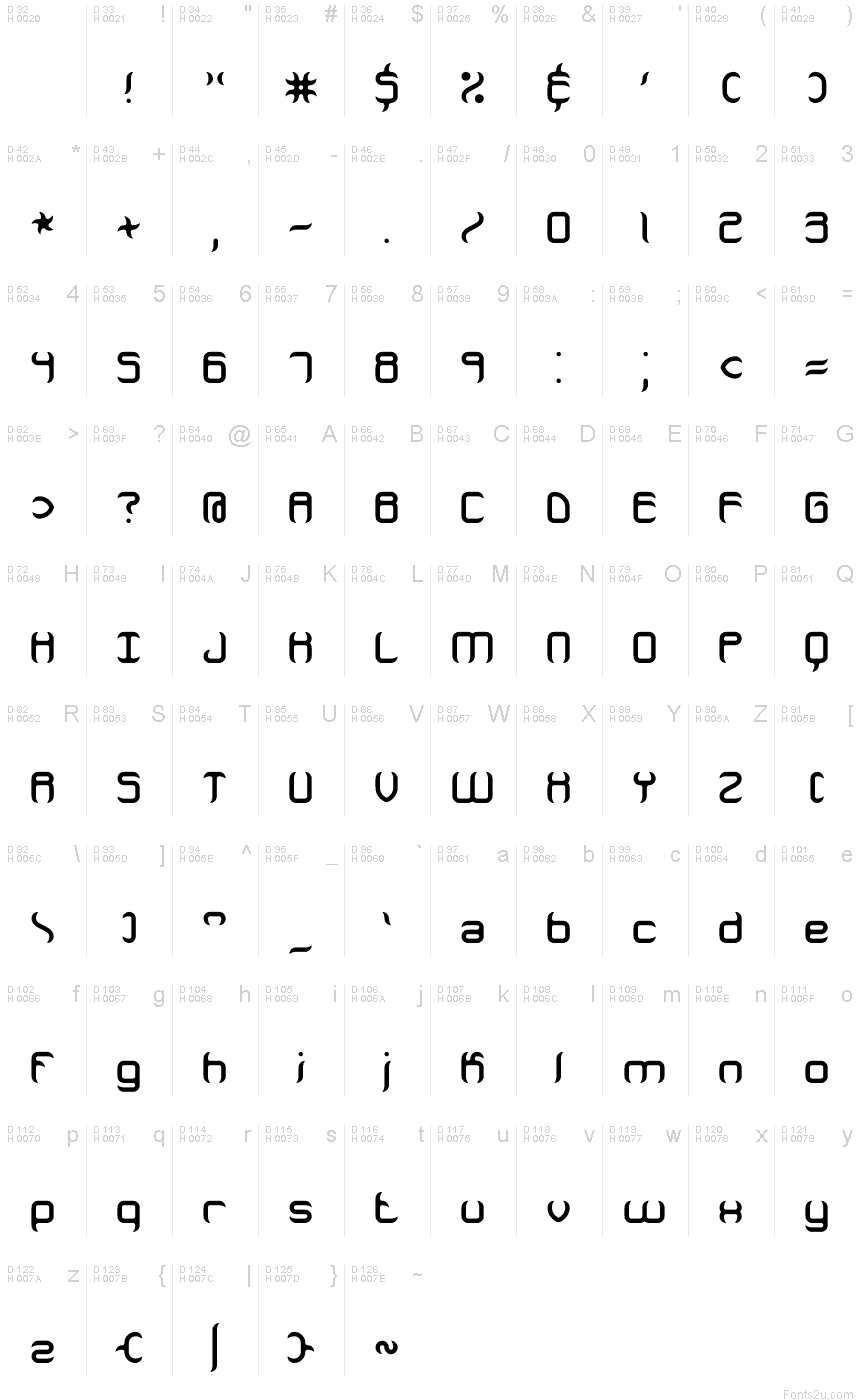
Jeopardize BRK font by Aenigma Fonts is a free groovy display typeface that fuses retro arcade energy with sleek, futuristic curves. Its thick, tubular strokes wrap around soft square interiors, creating chunky, almost rubbery letterforms that feel both playful and high-tech. The rounded corners and tight rhythm give words a steady, pulsing beat, so your titles look bold and intentional, not chaotic.
Using Jeopardize BRK, your headlines snap into focus on game logos, sci‑fi book covers, club posters, synthwave album art, tech event graphics, and streaming overlays. This free font shines at larger sizes, where its smooth curves and squared shapes can really breathe; pair it with a simple geometric sans for body copy to keep the spotlight on its groovy, modular character.
Jeopardize BRK